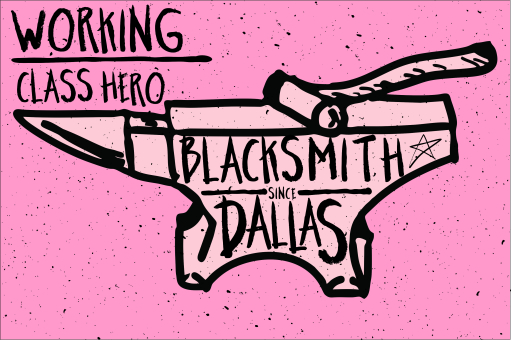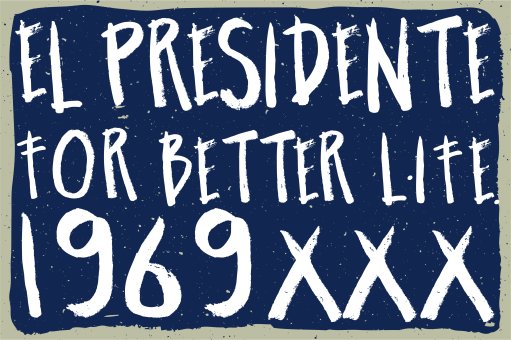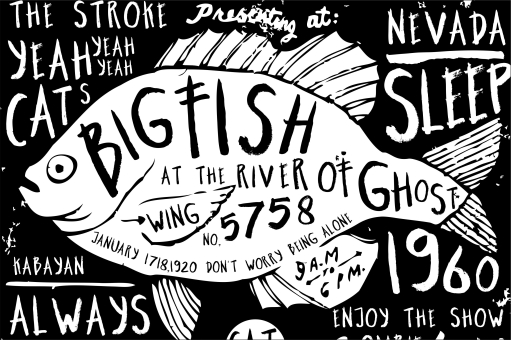
elora
effect of chalk on stroke font ellora, makes us remember the movie alpha alpha alpha. the structure firmly but irregular making an impression on the vintage letters are felt at all. This letter can be used to anything design as long as you are creative